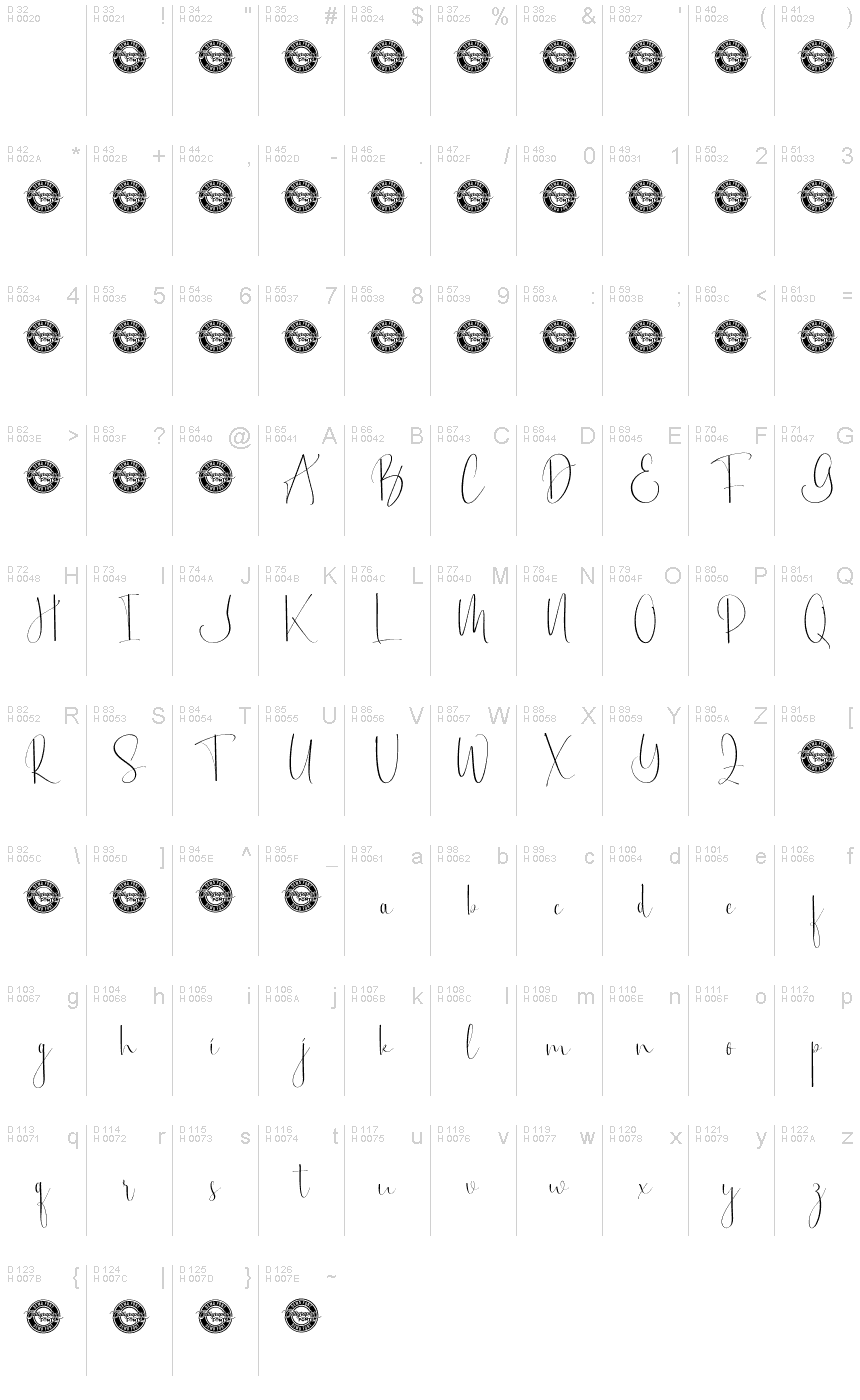
Brittany Rays Demo Script
Brittany Rays Script is a beautiful and elegant handwritten font that brings a touch of class to any project. Its thin weight and condensed width make it perfect for creating stunning invitations, greeting cards, or wedding stationery. With its flowing lines and delicate curves, this font is also suitable for branding projects, such as logos or product packaging. Whether you're looking to add a sophisticated touch to your website or create eye-catching social media posts, Brittany Rays Script is the perfect choice for bringing your ideas to life.